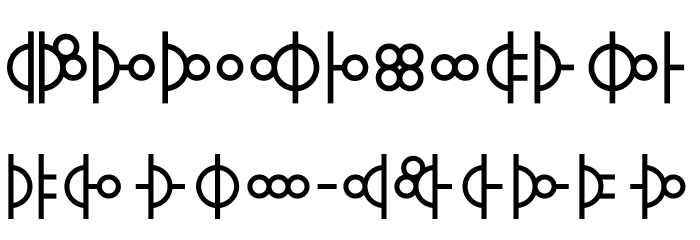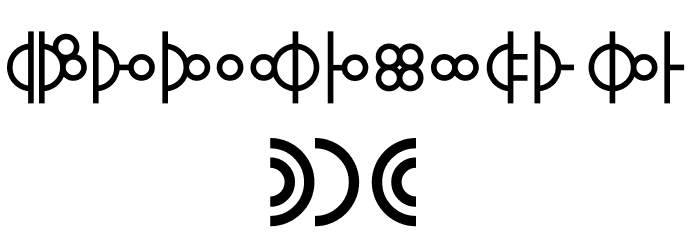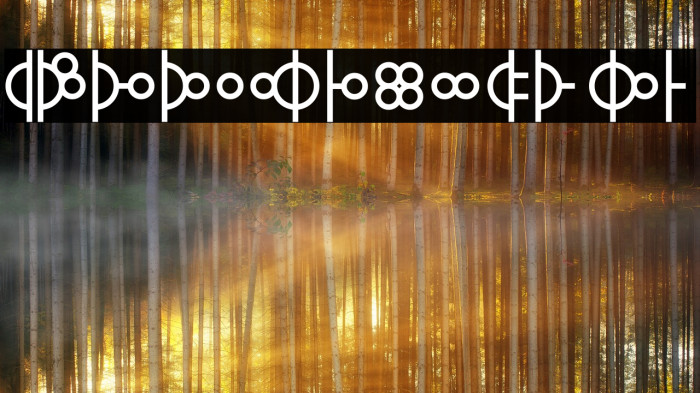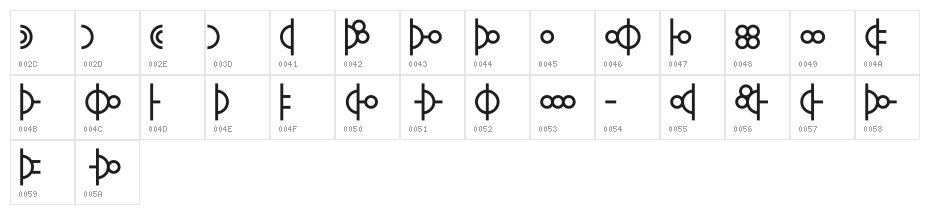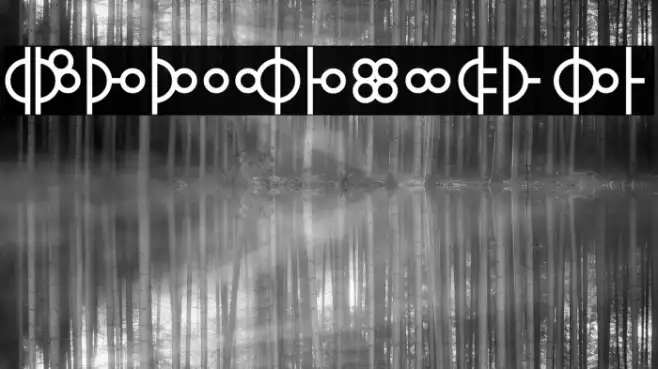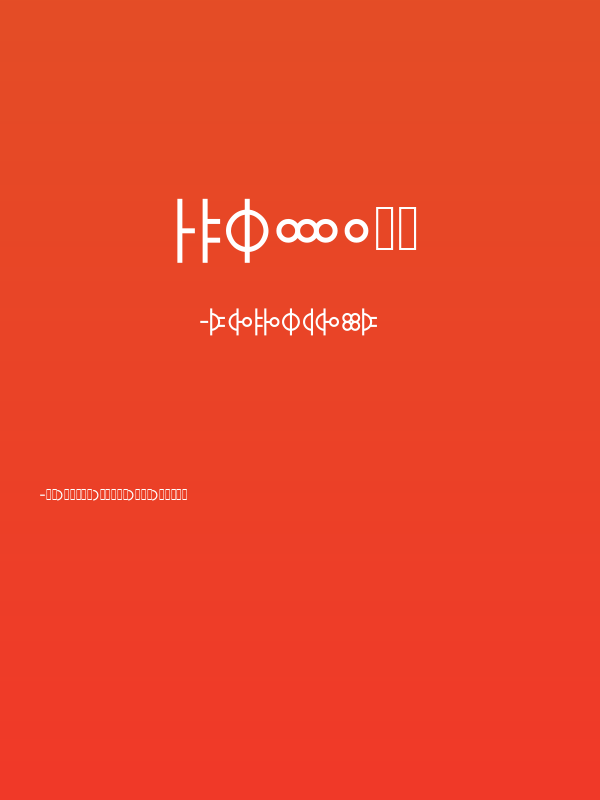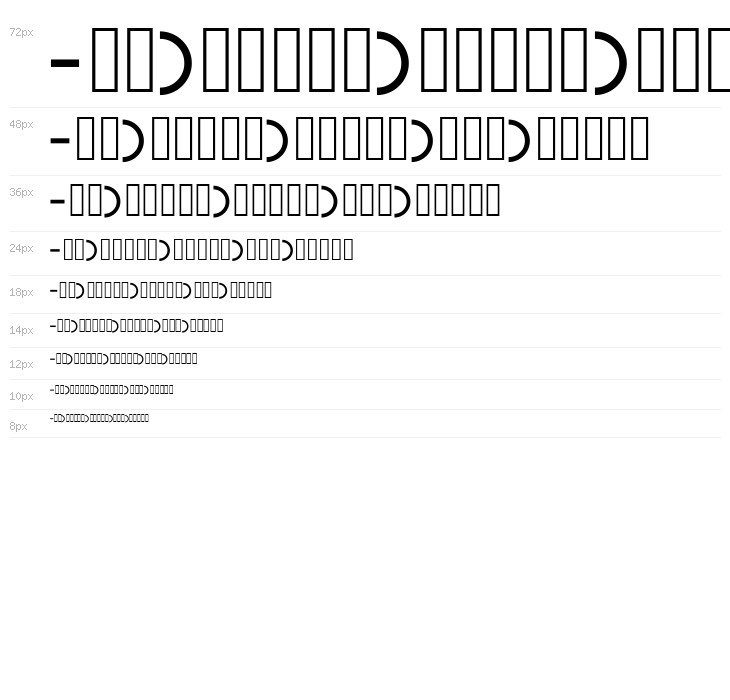
Morse01 Font
This design features a series of abstract, geometric symbols that resemble a fusion of Morse code and modern iconography. The characters are composed of circles, lines, and unique shapes that create a visually intriguing pattern. The style is highly decorative, with each symbol appearing as a standalone piece of art. The overall look is bold and striking, making it suitable for creative and artistic projects. The symbols are evenly spaced, providing a balanced and harmonious appearance.
A decorative, abstract symbol set inspired by Morse code and modern design.
- Proposed Projects: Ideal for artistic projects, logo design, and creative branding where a unique and modern aesthetic is desired.
- Use Case: Logos, Artistic projects, Creative branding